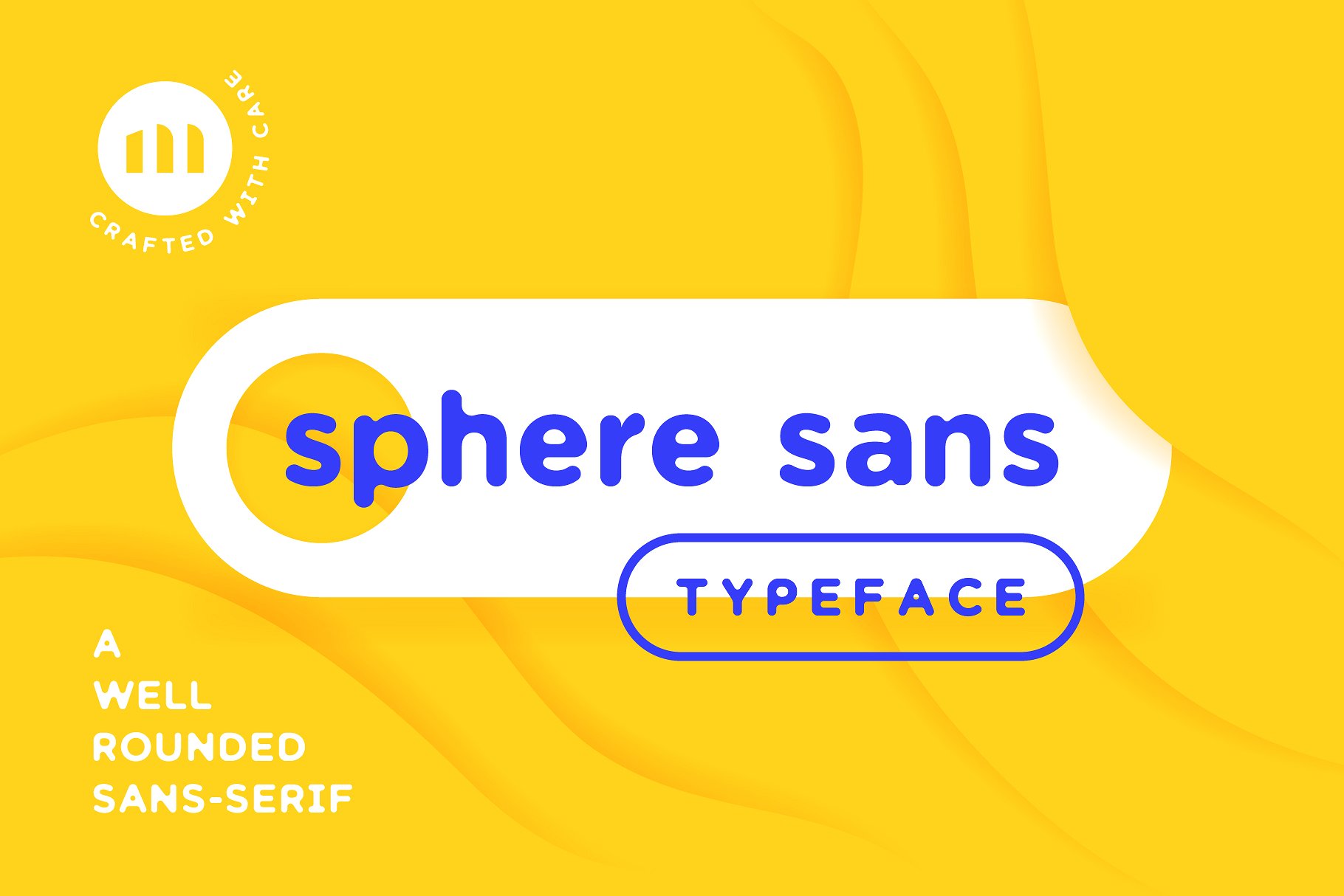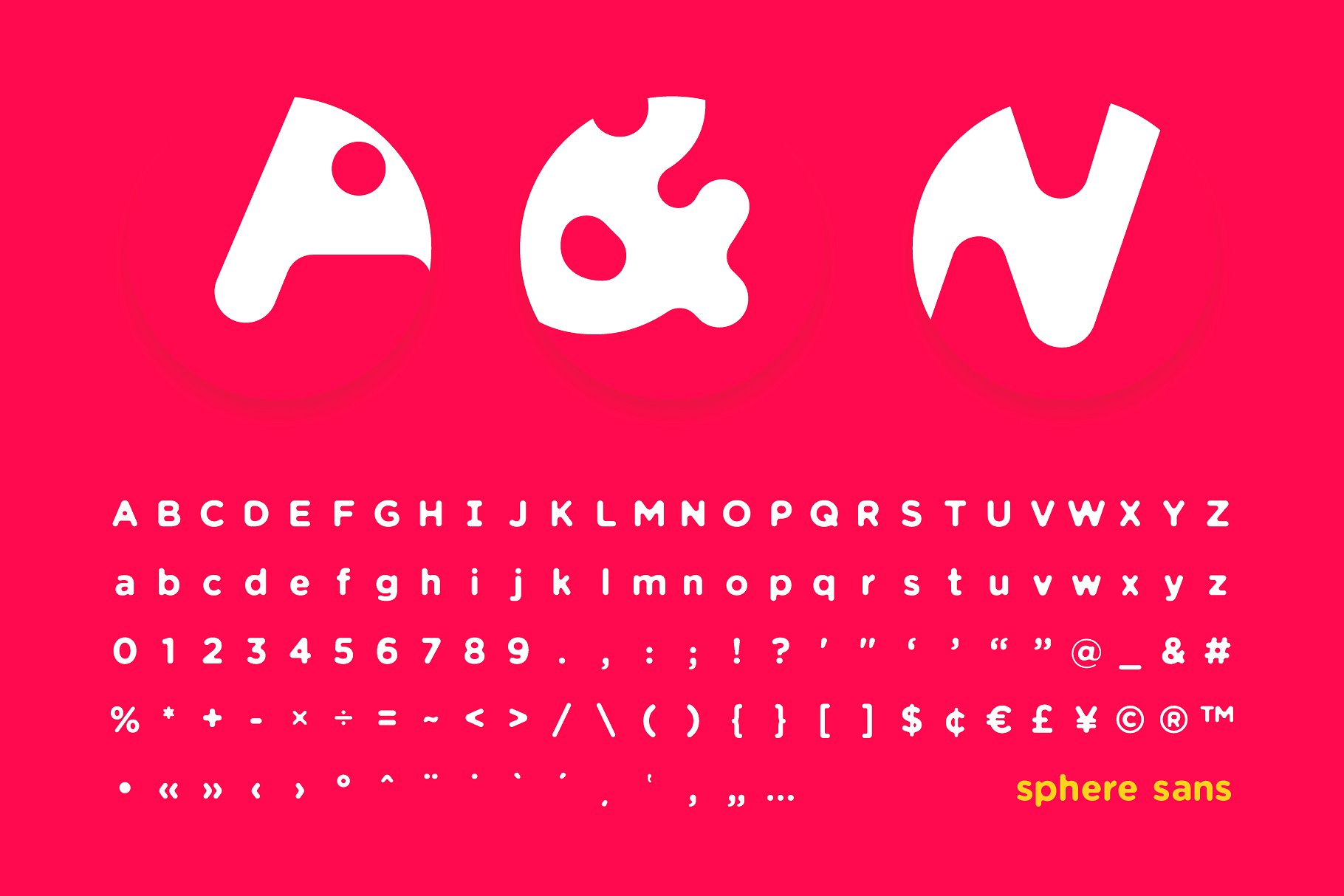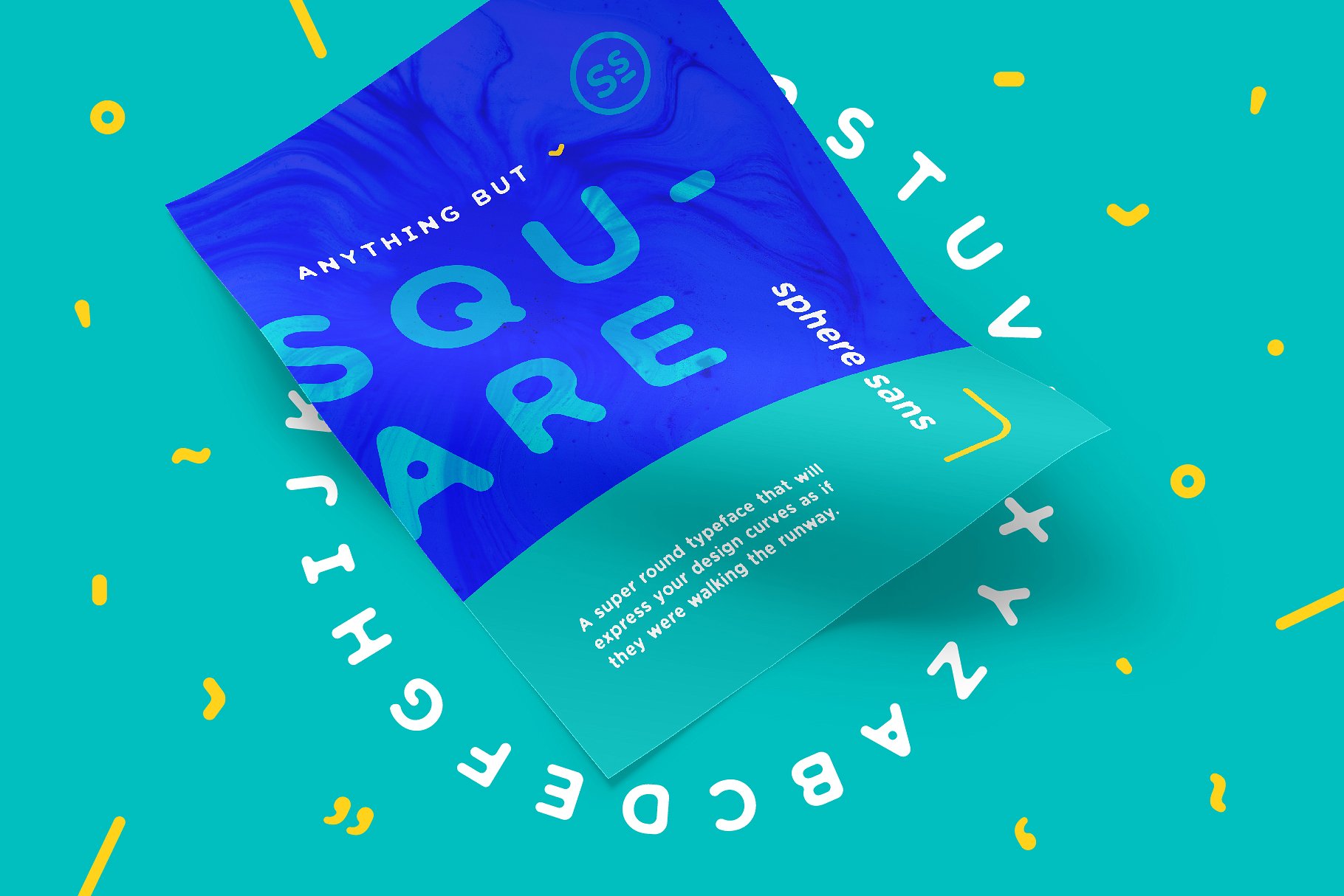
Designed by Corey Moen, Sphere Sans is a soft, sturdy and spherical typeface crafted with care. Sphere Sans can help you amp up your curve appeal and take on any design challenge. It can be a smooth operator on its own or play well with smooth scripts and a variety of other sans serif typefaces. The font is free for personal use. For the commercial version please check here.